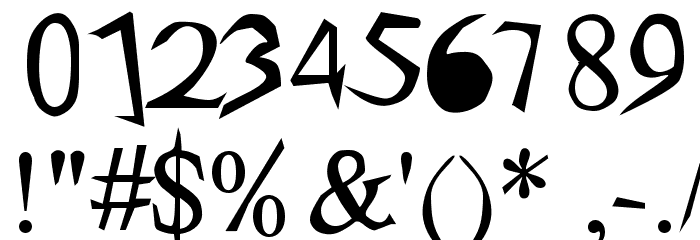
arachnid Font
arachnid Description
This font features a unique and striking design, combining elements of both classic and modern styles. The uppercase letters are adorned with intricate, web-like extensions that give a sense of chaos and movement, reminiscent of spider webs. In contrast, the lowercase letters are more traditional, with clean lines and a serif style that provides balance and readability. The numerals are bold and slightly irregular, adding to the font's distinctive character. Special characters maintain the theme, with some incorporating the web-like design. This font is ideal for projects that require a dramatic and eye-catching aesthetic.
| Overall Style | Modern, Decorative |
| Proposed Projects | Ideal for horror-themed designs, Halloween posters, edgy branding, and artistic projects that require a bold statement. |